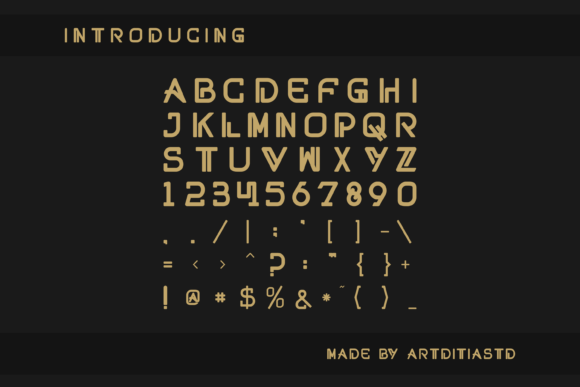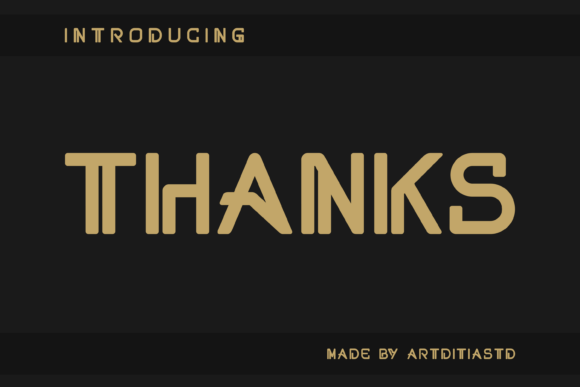
Introduction to Miteya Font
Miteya is a versatile font that is ideal for a wide range of design projects.
With its clear readability and contemporary aesthetic, Miteya is an excellent choice for social media graphics, advertisements, and more Whether you’re creating digital content, print materials, or branding elements, Miteya brings a fresh and stylish feel to any design.
Miteya Font offers exceptional quality and versatility, making it a valuable addition to your design toolkit. Whether you’re creating for personal projects or commercial use, Miteya Font delivers professional results.